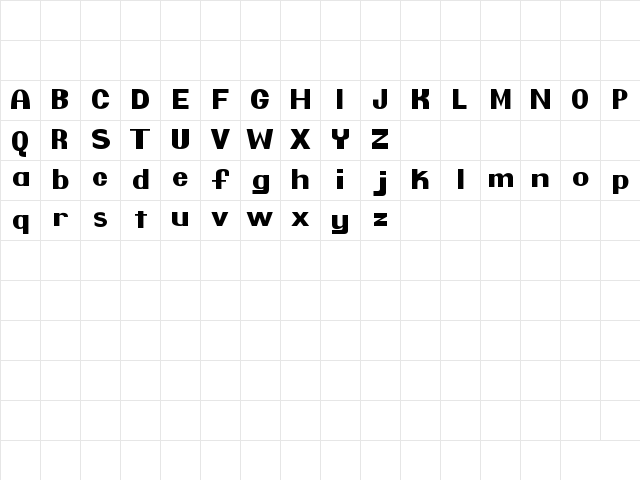
Complete Pretendo Regular glyph index. Displaying only characters natively supported by Pretendo Regular font.
Pretendo is a composed and adaptable typeface that performs quietly and consistently across a wide range of design contexts.